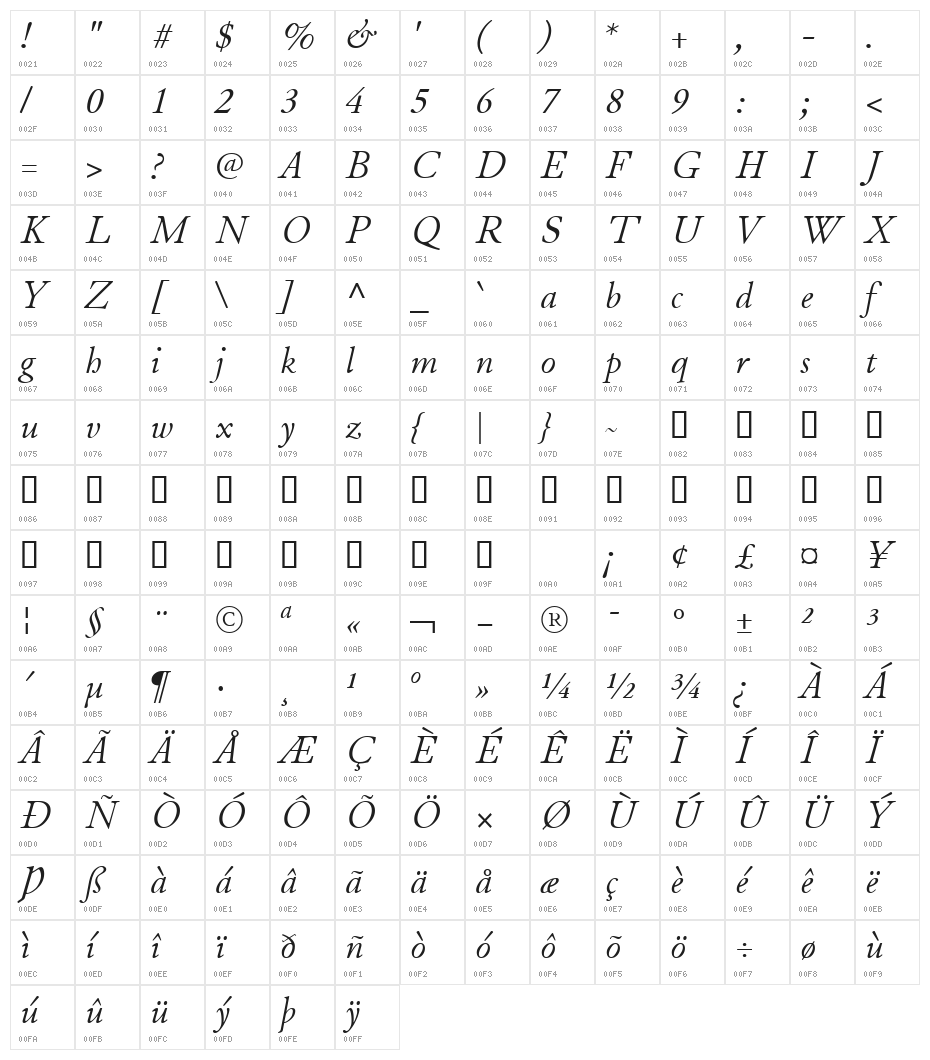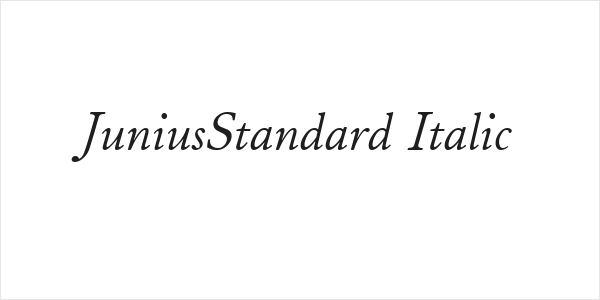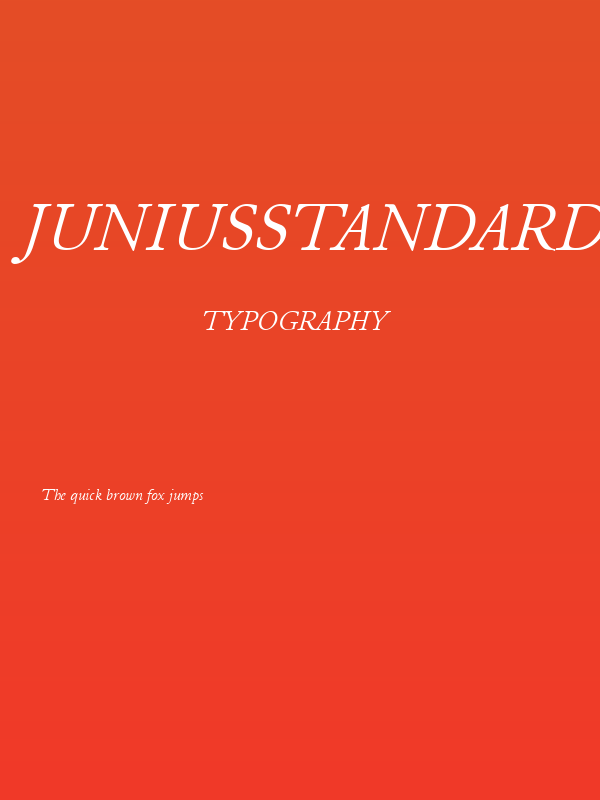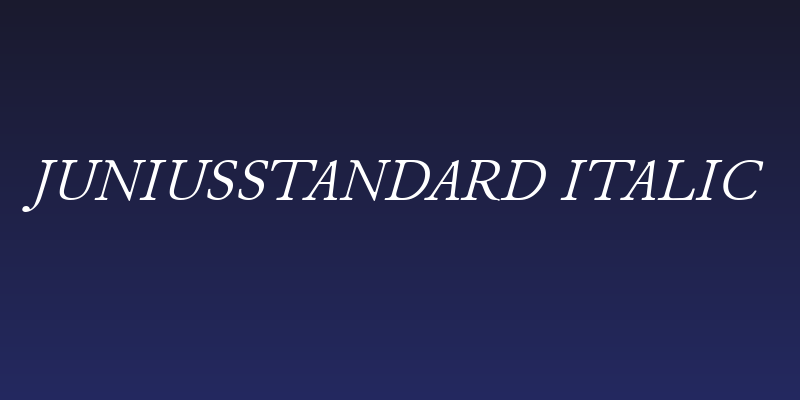
JuniusStandard Italic Font
JuniusStandard Italic Description
This elegant typeface features a classic italic style with a refined and sophisticated appearance. The letters are gracefully slanted, adding a sense of motion and fluidity. The strokes are moderately contrasted, with thin lines that give it a delicate and stylish look. The serifs are subtle yet pronounced, enhancing the traditional feel of the font. The overall design is balanced and harmonious, making it suitable for formal and elegant applications. The spacing between characters is normal, ensuring readability while maintaining its aesthetic appeal.
| Proposed Projects | Ideal for wedding invitations, formal event programs, elegant branding, and editorial design. |